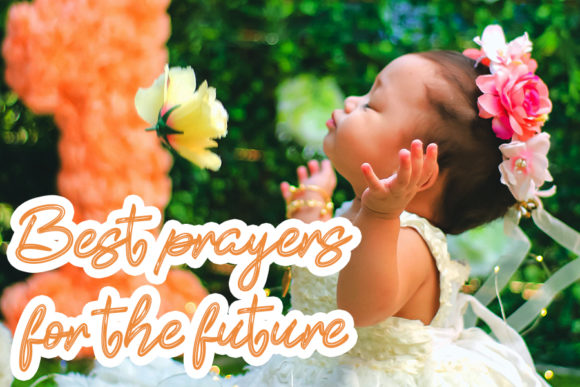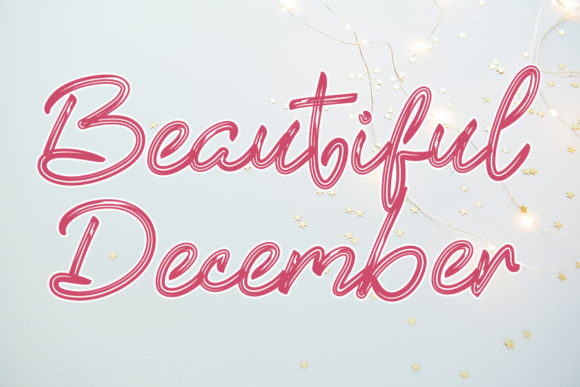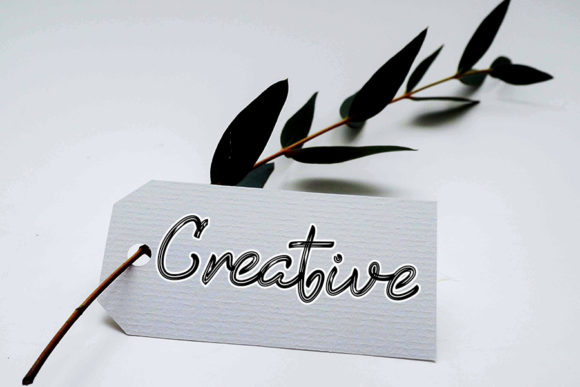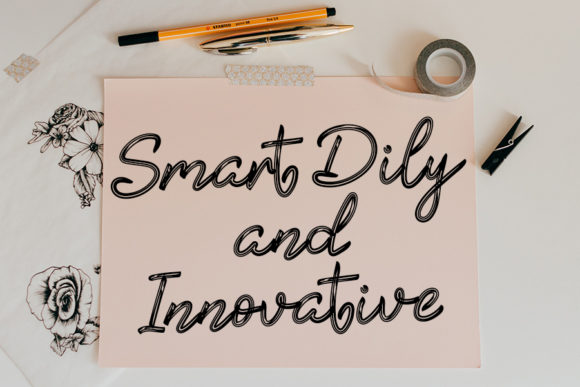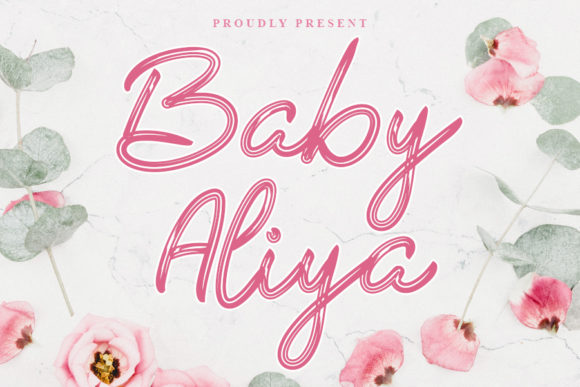
Baby Aliya Font: The Perfect Addition to Your Design Projects
In the world of typography, fonts play a crucial role in conveying the tone and personality of a design. For designers and crafters looking for a font that exudes joy, romance, and a touch of playfulness, Baby Aliya is an excellent choice. This relaxed and flowing handwritten font is perfect for a variety of design ideas, and in this article, we’ll explore what makes Baby Aliya a must-have in your font collection.
What is Baby Aliya Font?
Baby Aliya is a beautiful, handwritten font that boasts a gentle and soothing appearance. Its relaxed and flowing strokes make it an ideal choice for designers who want to add a personal touch to their projects. Whether you’re working on a wedding invitation, a baby shower announcement, or a branding project, Baby Aliya is sure to impress.
Key Features of Baby Aliya Font
- Handwritten appearance: Baby Aliya has a natural, handwritten look that adds a touch of warmth and personality to your designs.
- Relaxed and flowing strokes: The font’s smooth and flowing strokes create a sense of elegance and sophistication.
- Versatile: Baby Aliya can be used on a variety of design projects, from wedding and baby-themed designs to branding and packaging.
- Easy to read: Despite its elegant appearance, Baby Aliya is easy to read, making it perfect for body text and headlines.
Design Ideas Using Baby Aliya Font
Baby Aliya’s versatility makes it suitable for a wide range of design projects. Here are some ideas to get you started:
- Wedding invitations and stationery: Add a romantic touch to your wedding designs with Baby Aliya’s elegant and flowing strokes.
- Baby shower announcements and decorations: The font’s playful and joyful appearance makes it perfect for baby-themed designs.
- Branding and packaging: Use Baby Aliya to create a unique and memorable brand identity for your business or product.
- Social media graphics and quotes: Add a personal touch to your social media posts with Baby Aliya’s elegant and easy-to-read font.
Tips for Using Baby Aliya Font Effectively
To get the most out of Baby Aliya, here are some tips to keep in mind:
- Pair with contrasting fonts: Combine Baby Aliya with a bold or sans-serif font to create visual interest and hierarchy.
- Experiment with colors: Try pairing Baby Aliya with pastel colors or bold hues to add a pop of color to your designs.
- Use for headlines and body text: Baby Aliya’s readability makes it suitable for both headlines and body text.
In conclusion, Baby Aliya is a beautiful and versatile handwritten font that can add a joyful and romantic touch to your design projects. Its relaxed and flowing strokes make it perfect for a variety of design ideas, from wedding and baby-themed designs to branding and packaging. With its ease of use and flexibility, Baby Aliya is a must-have font for designers and crafters looking to add a personal touch to their work.